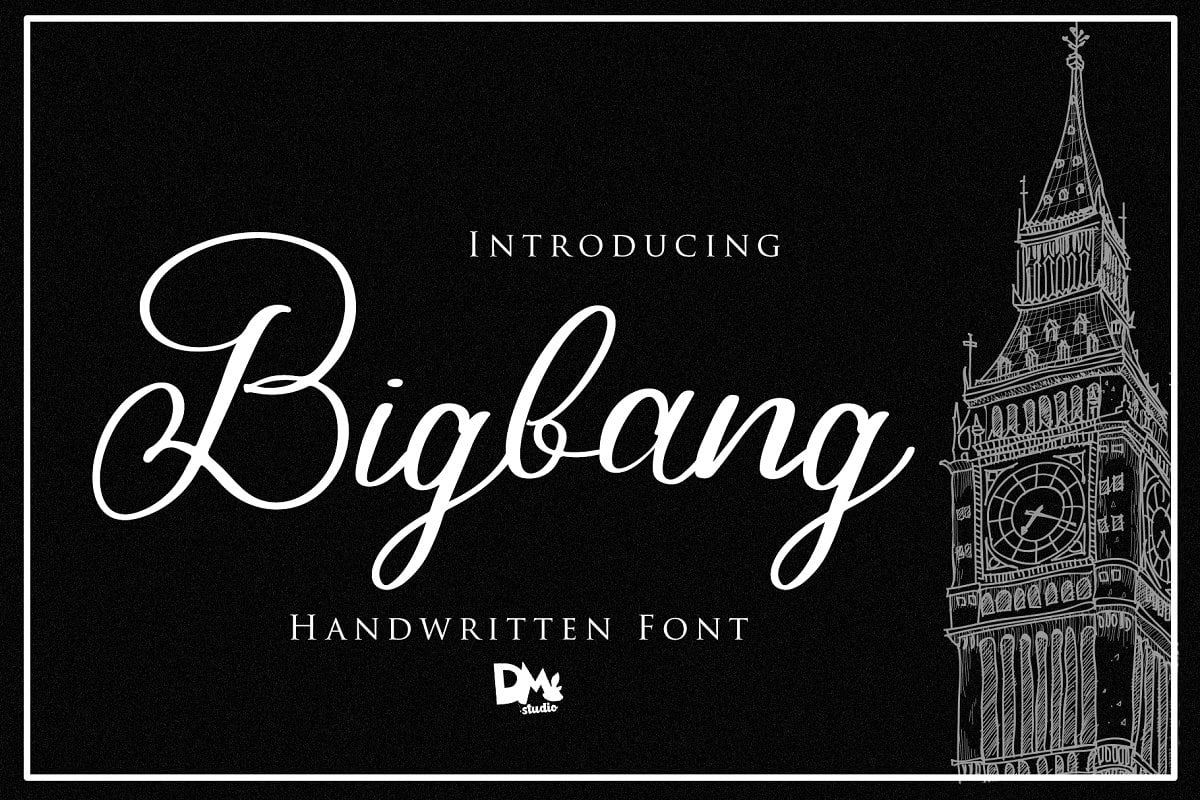
Big Bang! Font
Big Bang! Font is perfect for explosive product launches, cosmic event promotions, space-themed entertainment, universe exploration campaigns, stellar astronomy projects, galactic science exhibitions, explosive advertising materials, cosmic discovery graphics, stellar breakthrough announcements, and universe-expanding marketing campaigns.
Big Bang! Font is exciting because it captures the cosmic magnitude and explosive creation energy of the universe's birth through dynamic letterforms that convey infinite power, stellar expansion, and cosmic wonder with astronomical impact. This cosmically designed typeface combines universal creation aesthetics with contemporary functionality, making it perfect for brands that want to communicate breakthrough innovation, explosive growth, and universe-changing potential that transforms entire markets.
The Big Bang! Font family includes explosive weights with cosmic-inspired character styling, featuring stellar design elements and universal creation variations. The font showcases galactic design details, universe-expanding proportions, and cosmic character characteristics that create a comprehensive typographic system for astronomical and breakthrough brand applications.
The cosmic sophistication of Big Bang! Font makes it an invaluable tool for space agencies, breakthrough technology companies, and revolutionary service providers that need typography capable of communicating universal impact and cosmic significance. The font's explosive character helps establish connections with audiences fascinated by space exploration, scientific breakthroughs, and universe-changing innovations that expand human understanding.
Space museums, astronomy organizations, and breakthrough technology companies consistently choose Big Bang! Font for its ability to convey cosmic power and universal sophistication through typography. The font excels in applications where establishing astronomical credibility and cosmic appeal are essential to brand positioning, making it particularly effective for space education, scientific breakthroughs, and universe exploration brands targeting science-loving consumers.
This font's comprehensive character set includes cosmic-inspired letterforms, stellar numerals, galactic punctuation marks, and universe symbols that support authentic astronomical typography composition. The consistent explosive styling maintains the cosmic creation theme throughout all characters while ensuring professional readability across all space and breakthrough design projects requiring Big Bang! Font Free Download functionality.